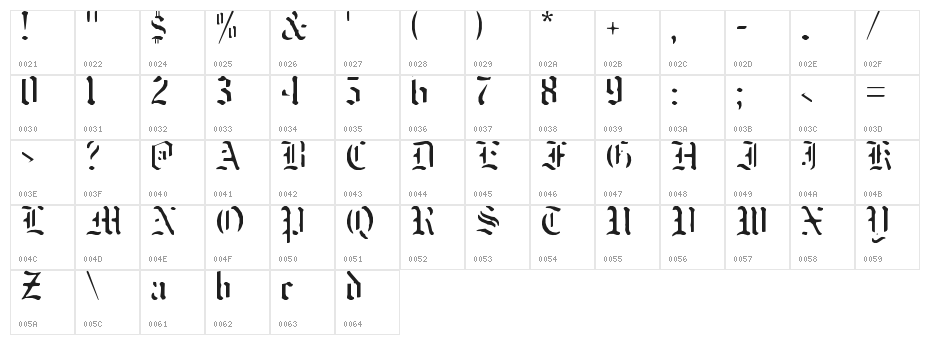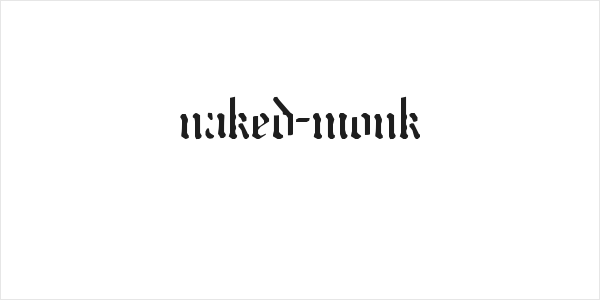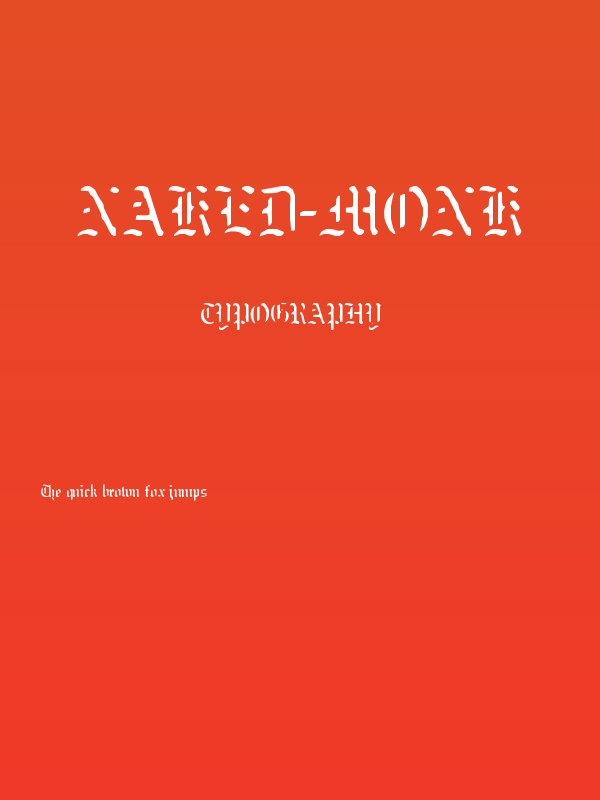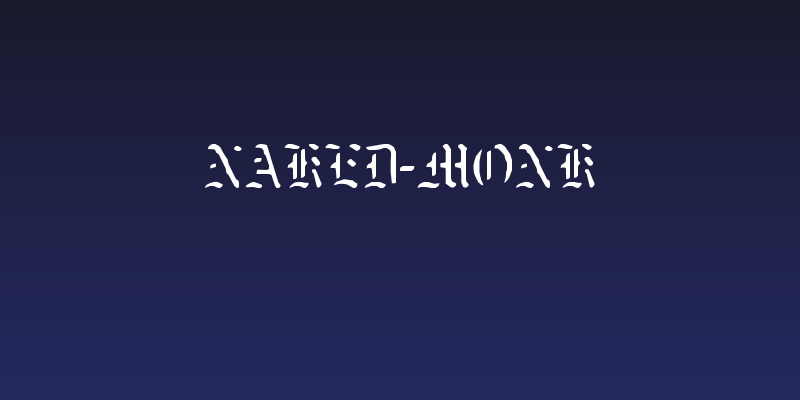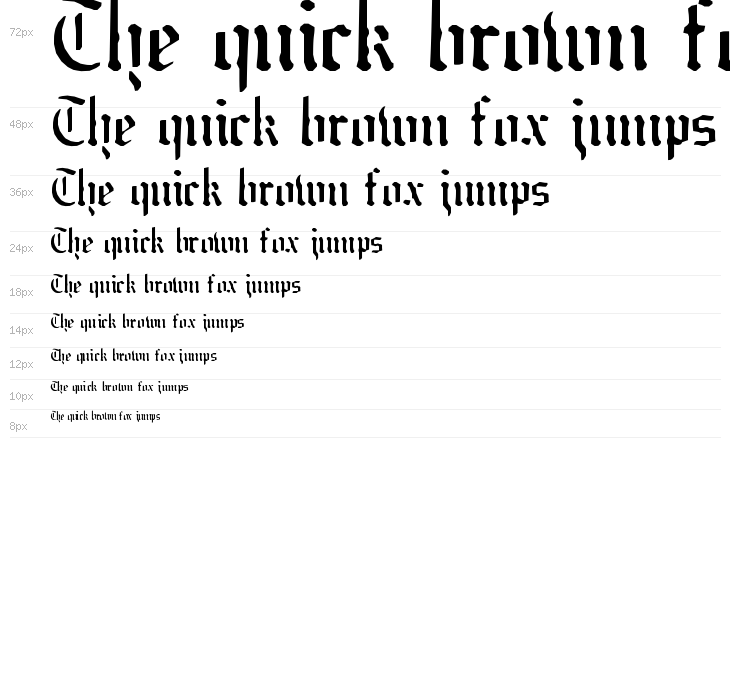
naked-monk Font
naked-monk Description
This font features a classic blackletter style, characterized by its intricate and ornate design. The letters are bold and angular, with sharp edges and a strong presence. The uppercase letters exhibit a traditional Gothic influence, with elaborate serifs and a medieval aesthetic. The lowercase letters maintain the same stylistic elements, providing a cohesive look throughout the typeface. Numbers and special characters are designed with the same attention to detail, ensuring consistency across all elements. This font is perfect for projects that require a historical or dramatic flair, such as invitations, posters, or branding that seeks to evoke a sense of tradition and elegance.
| Use Case | Headlines, Logos, Decorative text |
| Proposed Projects | Ideal for historical-themed designs, wedding invitations, posters, and branding that requires a traditional or dramatic touch. |